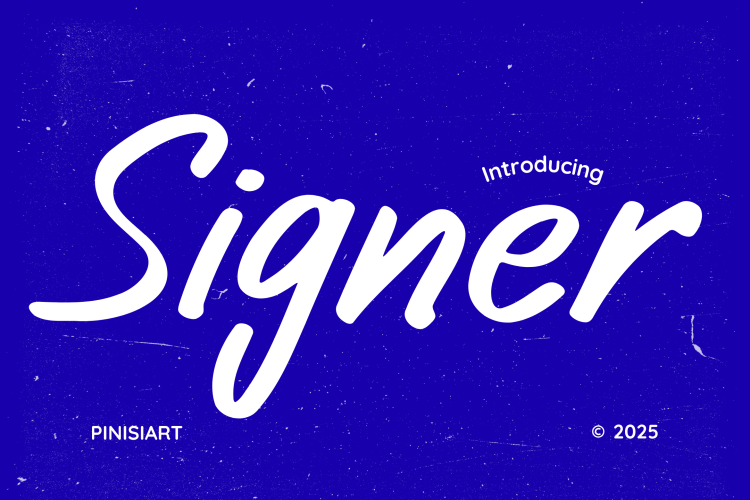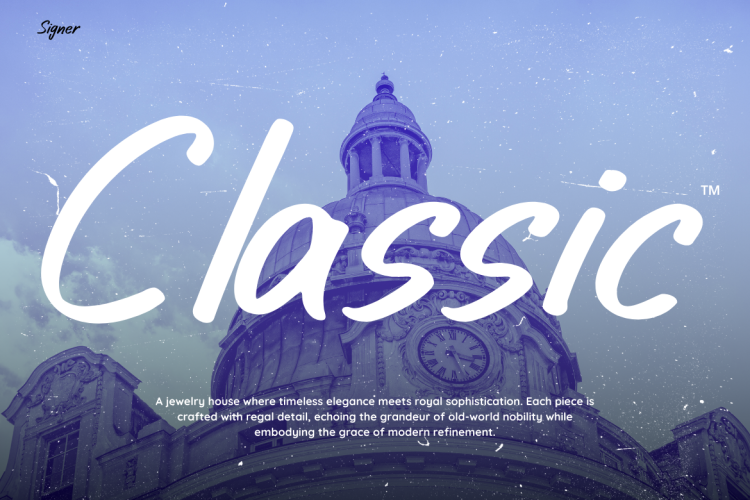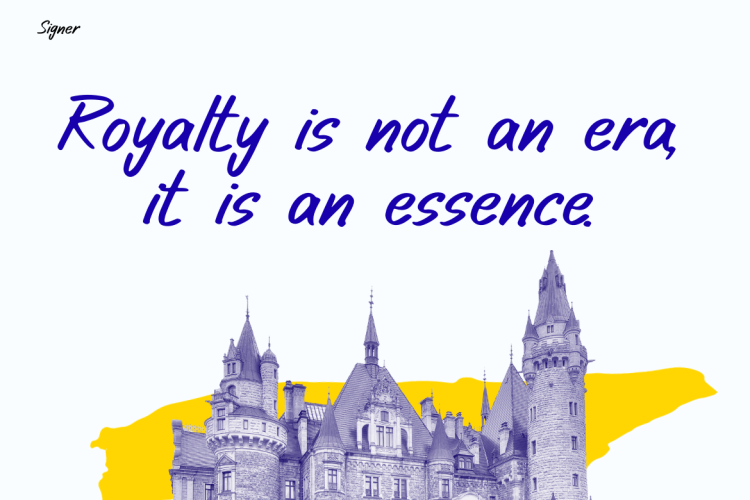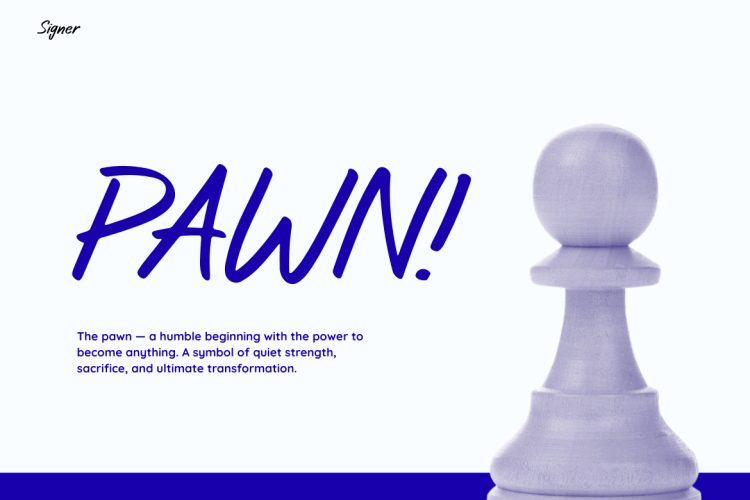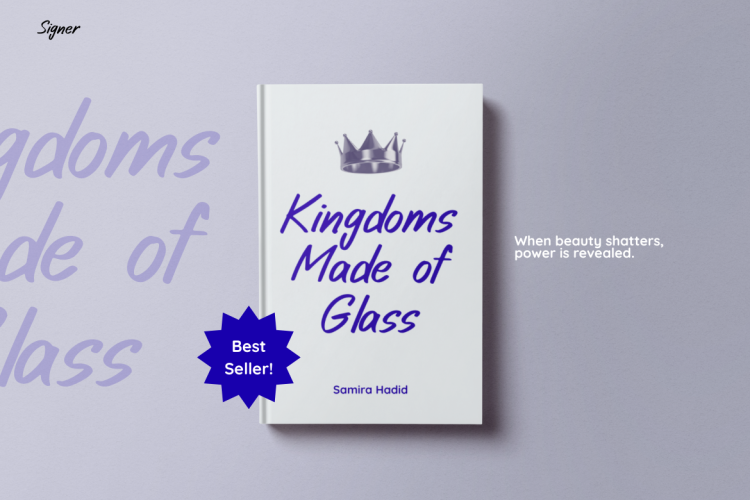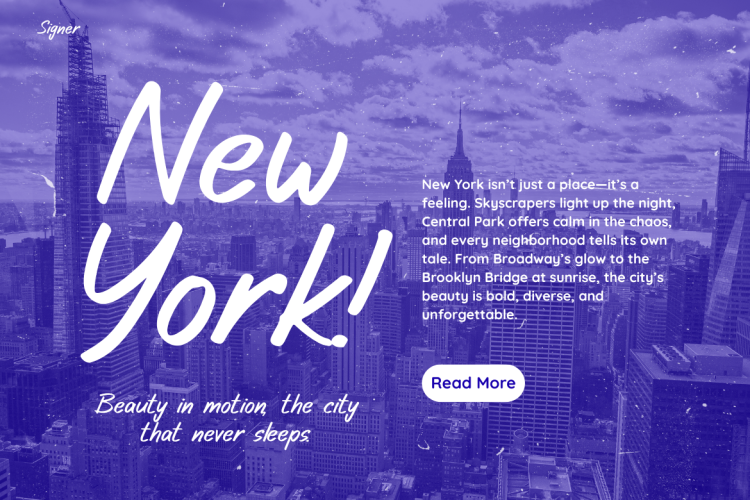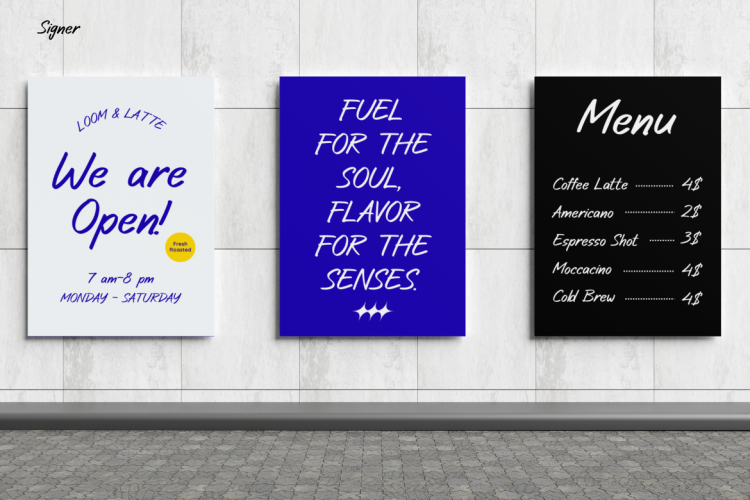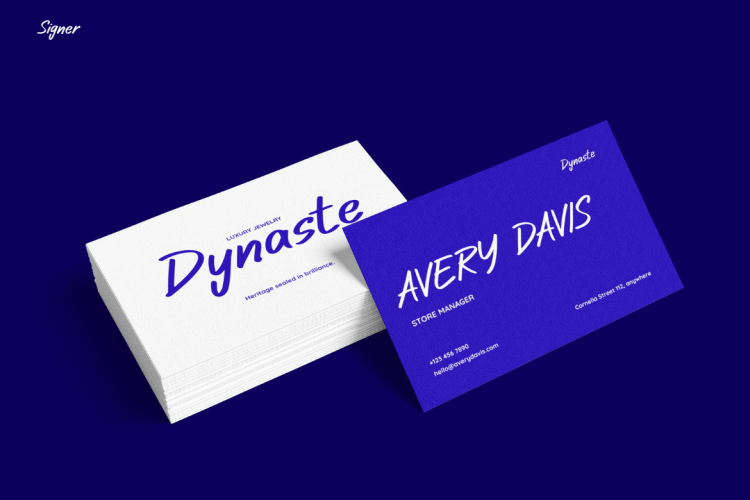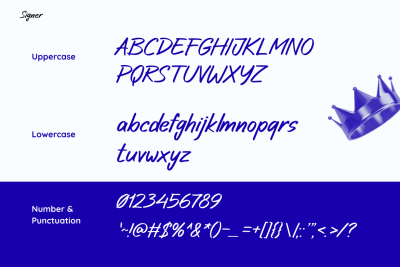
Handwriting Font Signer โ Elegant Script with Timeless Charm
Handwriting Font Signer is more than just another script typeface. Instead, it is a modern handwriting font that adds style, elegance, and authenticity to your projects. Its smooth strokes and natural flow make every word look personal, yet refined.
Moreover, this font stands out because it balances casual handwriting aesthetics with professional design use. As a result, it feels natural and creative while staying clear and easy to read. On posters, invitations, logos, or digital content, Handwriting Font Signer always delivers originality.
In addition, the beauty of this font lies in its real handwriting feel. Each curve looks warm and engaging, while the consistent letterforms ensure professional results. Therefore, it makes your designs memorable and full of character. Even more, it adapts well to both minimalist and bold layouts, making it a versatile choice for different industries.
Who Should Use Handwriting Font Signer?
This font is perfect for designers, entrepreneurs, and creatives who want a personal yet stylish edge. In particular, social media creators and influencers can use it for posts, stories, or banners to gain more attention and engagement.
Furthermore, small businesses and premium brands will find it ideal for logos, packaging, menus, and signage. Because it creates a friendly and inviting vibe, customers will connect with your brand more easily.
Event planners and stationery designers should also consider Handwriting Font Signer. While many fonts feel too generic, this one adds elegance to wedding invitations, greeting cards, and personal notes. In the end, it gives every design a heartfelt finish.
Make It Yours
If you want a font with style, personality, and versatility, this is the one. Moreover, Handwriting Font Signer is not just a fontโit is a statement. Use it to bring beauty, authenticity, and elegance to your work. As a result, your creations will stand out and stay unforgettable. Sign your projects with Signer and watch your designs come to life with charm.